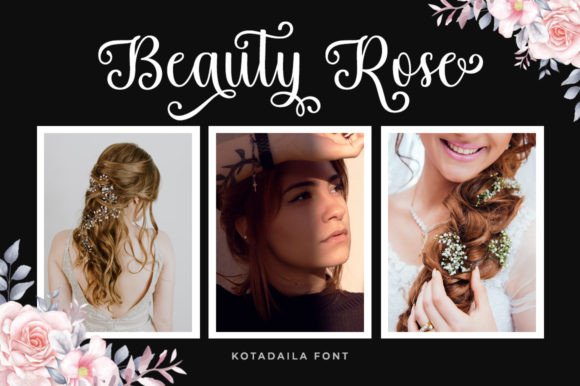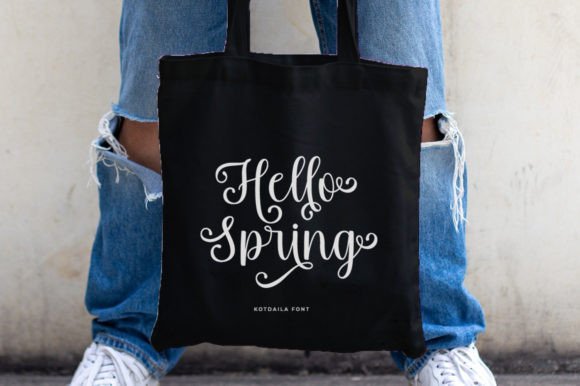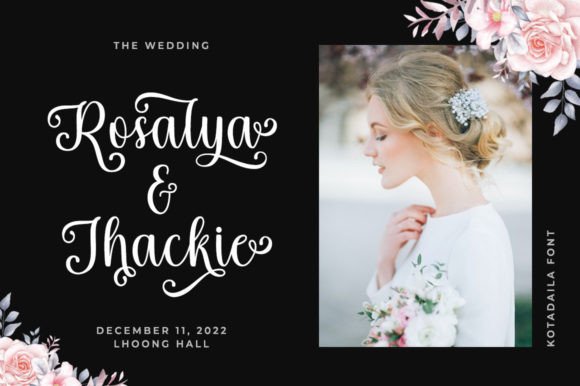
Introduction to Kotadaila Font
Kotadaila is a beautiful script font featuring elegant characters and a cursive style.
It is perfect for branding, logos, invitations, mastheads, and more This font is PUA encoded, which means you can access all of the glyphs and swashes with ease.
Key Features of Kotadaila Font
Kotadaila Font offers exceptional quality and versatility, making it a valuable addition to your design toolkit. Whether you’re creating for personal projects or commercial use, Kotadaila Font delivers professional results.